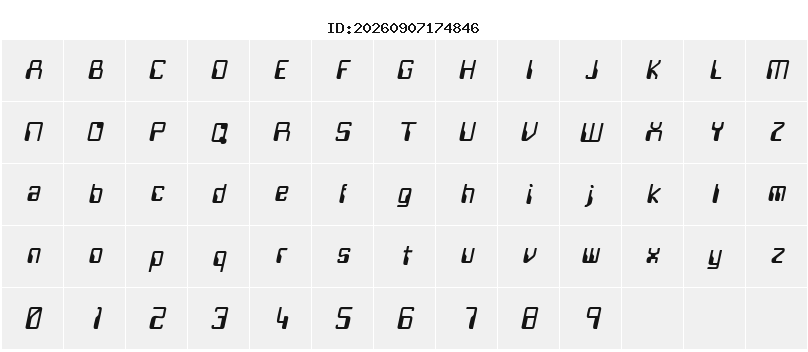
• Font Name: UltimoSSK
• Full Font Name: UltimoSSK Italic
About UltimoSSK.ttf
UltimoSSK.ttf is a modern, elegant sans-serif font designed for ultimate readability and visual harmony. Perfect for branding, headlines, web design, and print materials.